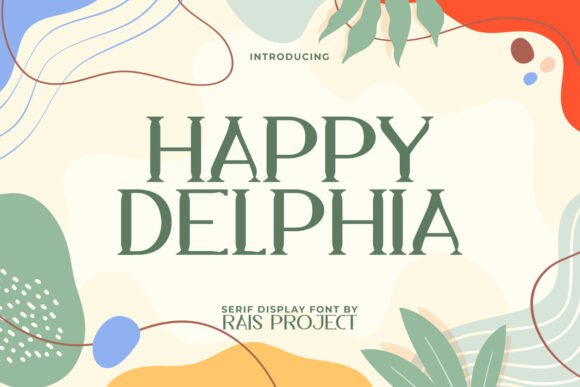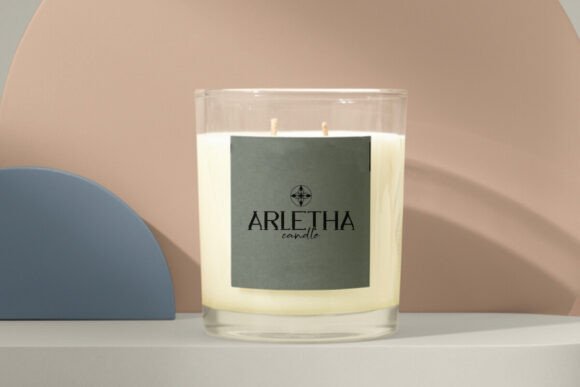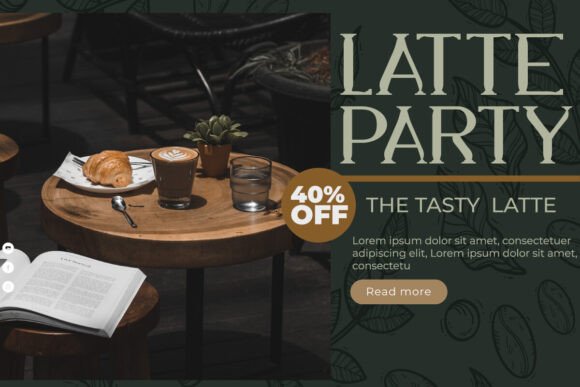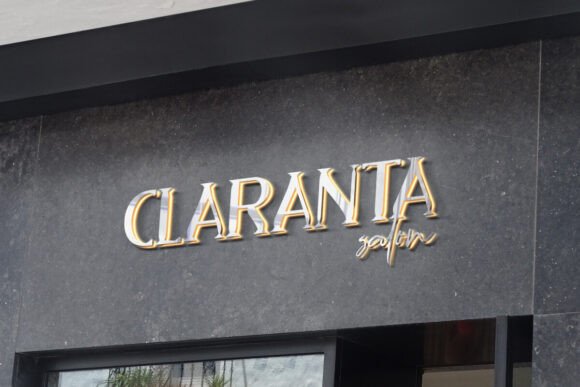
Happy Delphia Font: A Playful Serif Display for Modern Branding
About the Happy Delphia Font
The Happy Delphia Font offers a perfect balance of form and function for your design needs. Happy Delphia Font is a unique, unusual serif display font with a playful style. This font has a unique shape and can stand out in your design when combined with other types of fonts. It will work well in many designs, such as brand image, custom design, invitation, label, menu, poster, product packaging, quote, signage, stationery, web, and more!
Happy Delphia’s playful yet sophisticated serif design shines in headlines, logos, and short-form text for packaging or posters. Its distinctive character makes it unsuitable for body text or UI elements where readability is paramount. Avoid using it for lengthy paragraphs; its unique forms could hinder comprehension.
This font’s personality is best described as bold and friendly, making it ideal for brands targeting a youthful or playful audience. Consider pairing it with a clean sans-serif like Open Sans for contrast and readability in supporting text or a geometric sans-serif like Futura for a modern, sophisticated feel.
For a more whimsical approach, a flowing script font could complement its playful nature. However, ensure legibility by selecting a script with clear letterforms. Avoid pairing it with other highly decorative or ornate fonts to prevent visual overload.
Happy Delphia Font Usage Examples
Happy Delphia Font Example